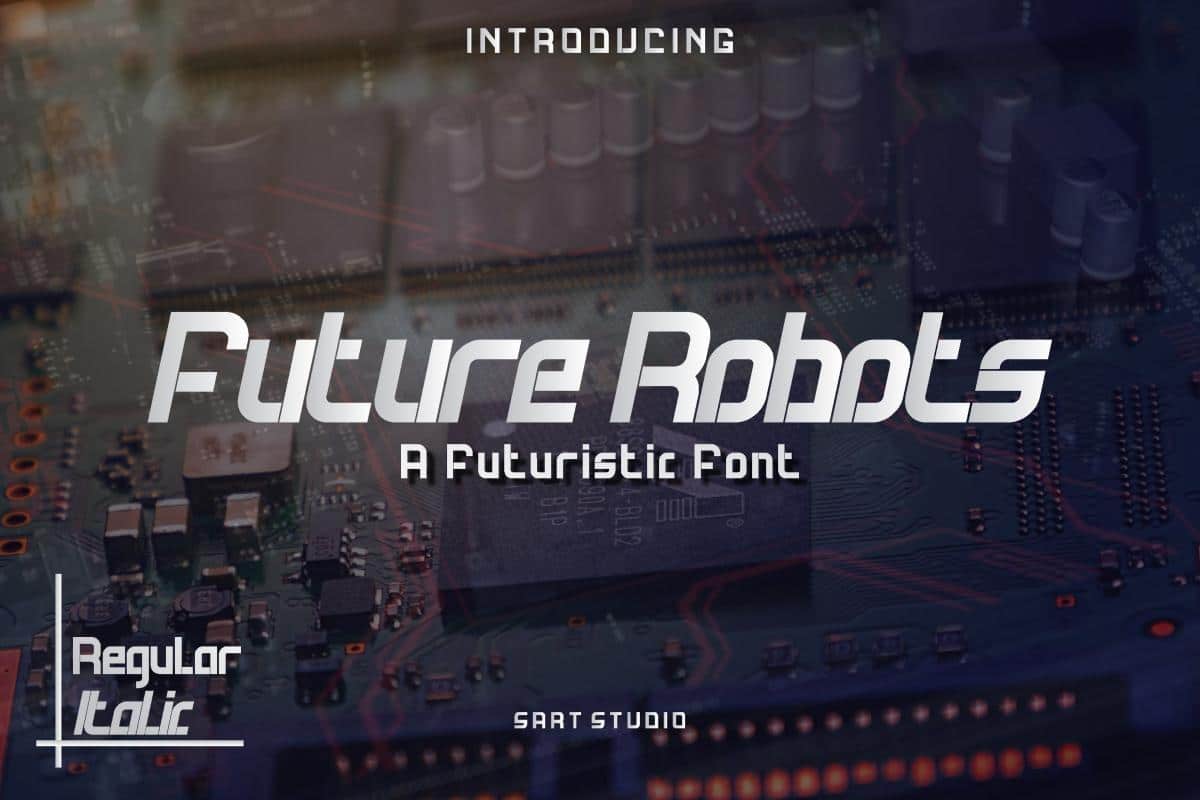
Future Techno Font is a modern and futuristic themed font, very suitable for the needs of sports, automotive and technology themes. This font consists of regular and italic. very easy to install and support the software design that is on a mac or pc.
Future Techno celebrates abstract shapes in all their eclectic beauty. This playfully conceptual display font will look truly outstanding in a wide range of contexts. The only limit is your imagination!
- Designer: Sartstudio